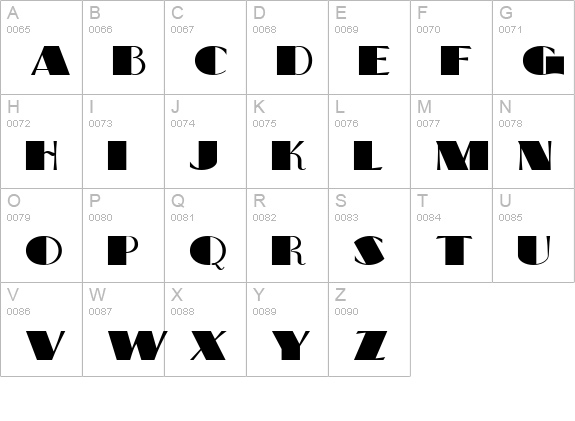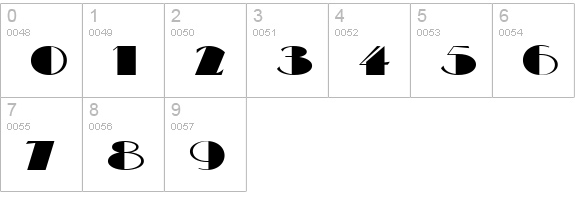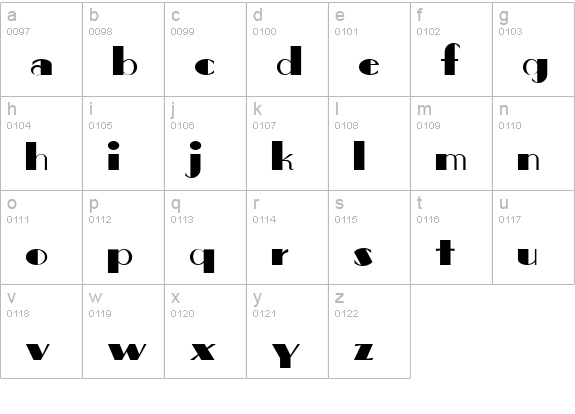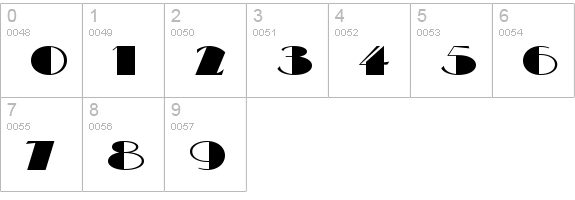
Big Apple NF Font Details
Big Apple NF is a modern and stylish font that captures the essence of the bustling city of New York. With its bold and eye-catching design, this font is perfect for a wide range of projects, from posters to logos to social media graphics. The sleek lines and contemporary feel of Big Apple NF make it a versatile choice for any design endeavor. The best part is that Big Apple NF is completely free to download at FontsMarket.com. Whether you're a professional designer looking for a new font to add to your collection or a hobbyist looking to spruce up your projects, Big Apple NF is a fantastic choice. Don't miss out on this amazing opportunity to enhance your designs with this unique and impactful font. Download Big Apple NF today and let your creativity soar!